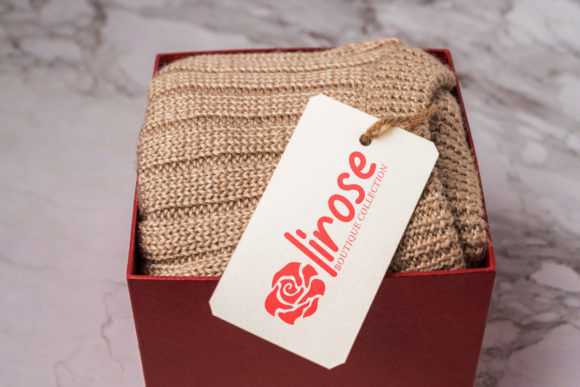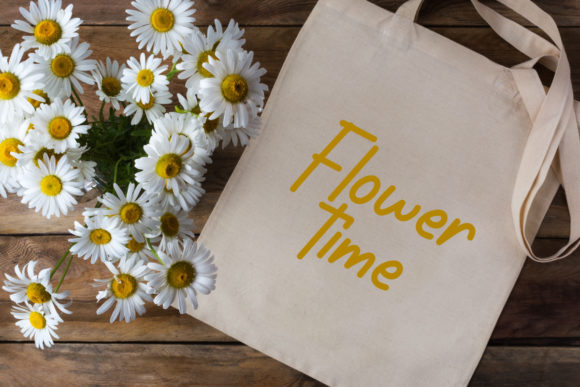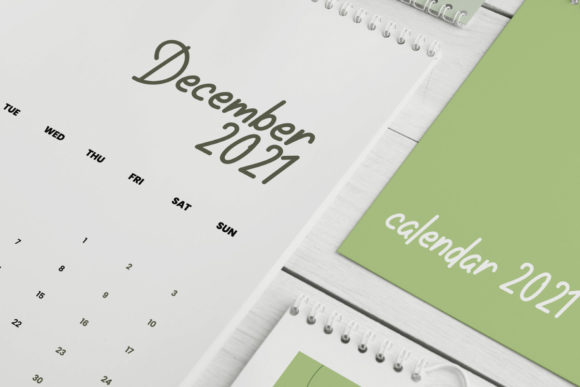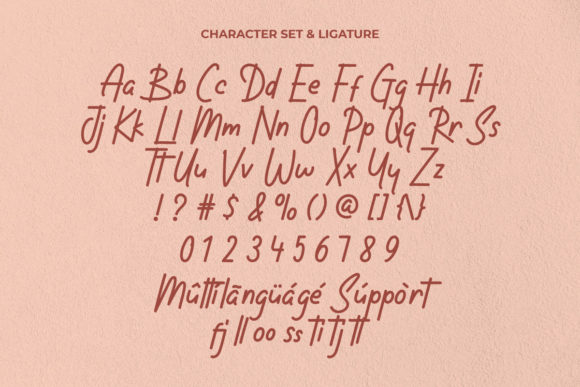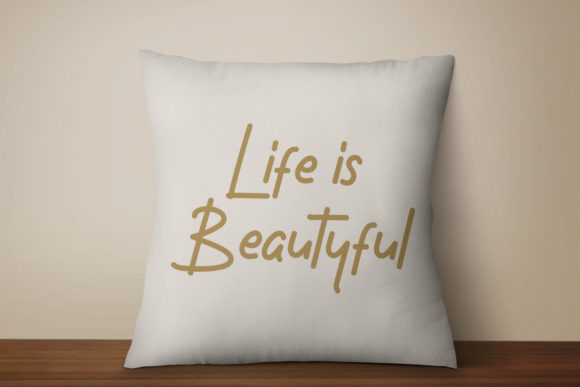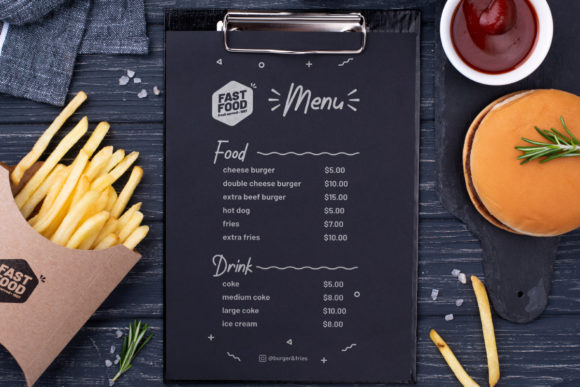
Harella Font: Elevate Your Designs with Elegant Script Style
In the world of typography, fonts play a crucial role in bringing creative projects to life. For designers and crafters seeking a touch of elegance and natural beauty, Harella Font is an excellent choice. This stunning script font is designed to add a handwritten flair to minimalist and casual designs, making it perfect for a wide range of applications.
The Beauty of Harella Font
Harella Font is a meticulously crafted script font that exudes a sense of sophistication and refinement. Its elegant strokes and natural flow make it an ideal choice for designers looking to add a personal touch to their work. Whether you’re creating invitations, titles, or signage, Harella Font is sure to impress.
One of the standout features of Harella Font is its versatility. This font is suitable for a wide range of projects, including:
- Coffee shops: Add a touch of elegance to your coffee shop’s branding, menus, and signage with Harella Font.
- Invitations: Create beautiful and sophisticated invitations for weddings, parties, and other special events.
- Movies: Use Harella Font to add a touch of glamour to your movie titles, posters, and promotional materials.
- Children’s books: Bring your children’s books to life with Harella Font’s playful and elegant script style.
- Signage: Make a statement with Harella Font on your signage, whether it’s for a business, event, or exhibition.
- Titles: Use Harella Font to create stunning titles for your blog posts, articles, or social media graphics.
Why Choose Harella Font?
So, what sets Harella Font apart from other script fonts? Here are just a few reasons why designers and crafters love this font:
- Natural look: Harella Font has a natural, handwritten look that’s perfect for creating a personal connection with your audience.
- Elegant style: This font exudes elegance and sophistication, making it perfect for high-end designs.
- Versatility: Harella Font can be used for a wide range of projects, from casual designs to more formal applications.
- Easy to read: Despite its elegant style, Harella Font is easy to read, making it perfect for body text and headlines.
Tips for Using Harella Font
To get the most out of Harella Font, here are a few tips to keep in mind:
- Pair with sans-serif fonts: For a striking contrast, pair Harella Font with a sans-serif font for your body text.
- Use for headlines: Harella Font is perfect for headlines and titles, where its elegant style can shine.
- Experiment with colors: Try pairing Harella Font with different colors to create a unique and eye-catching design.